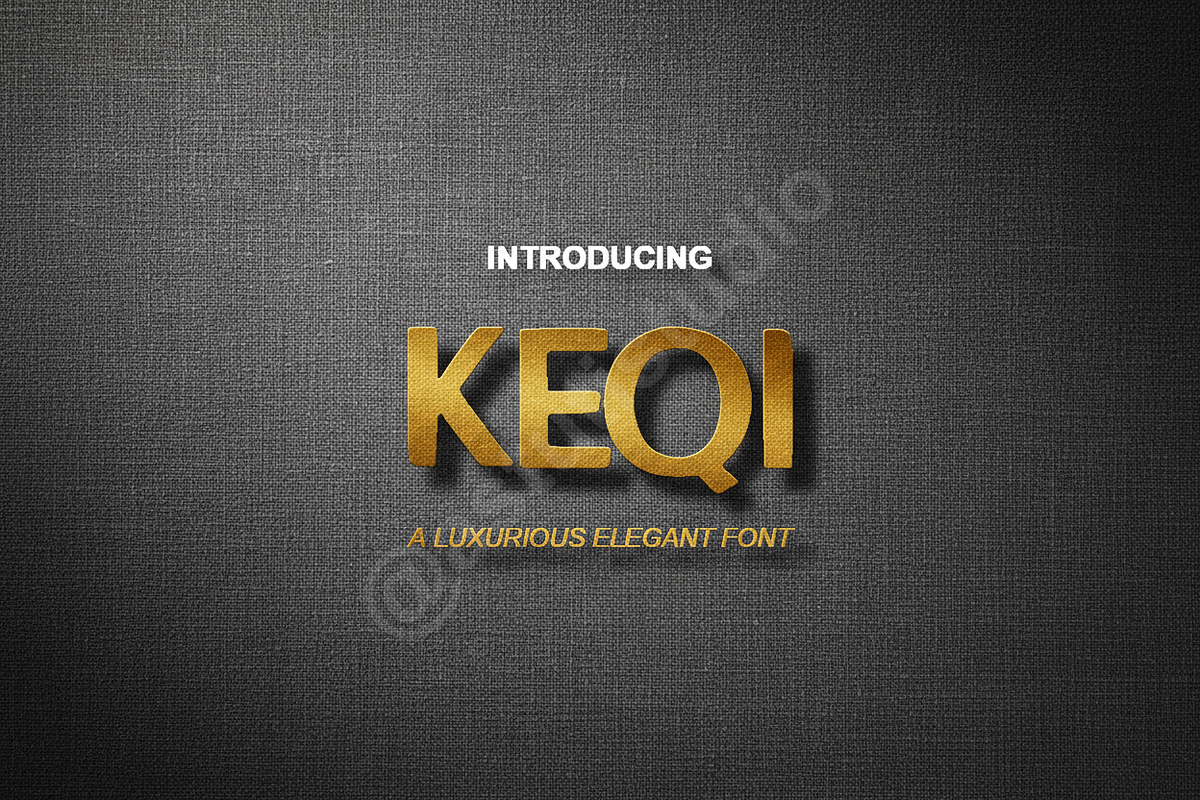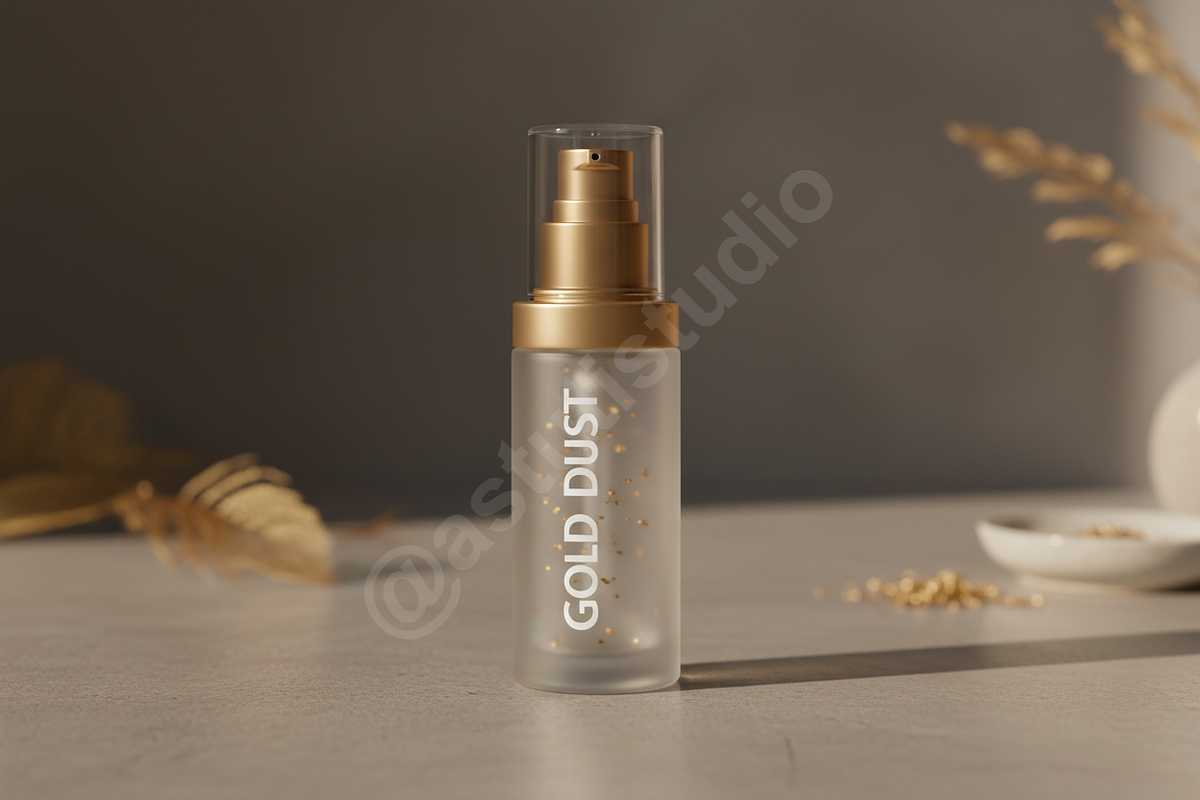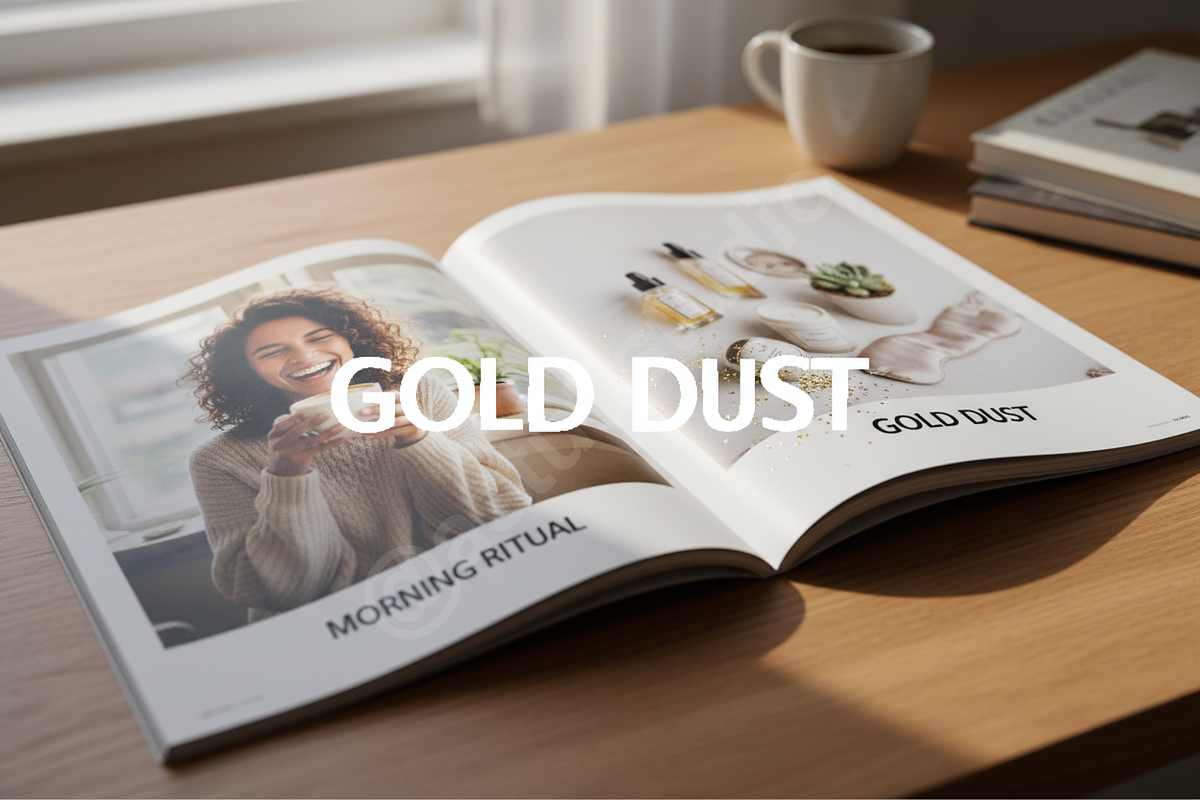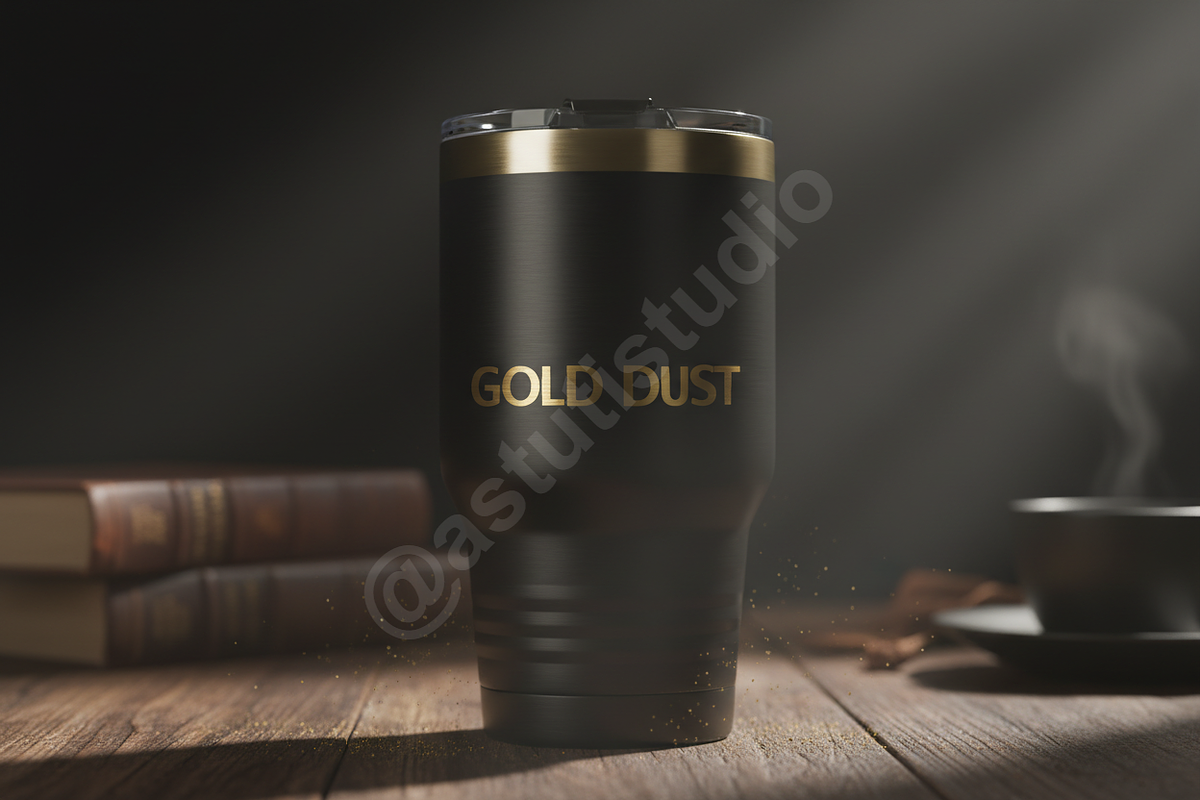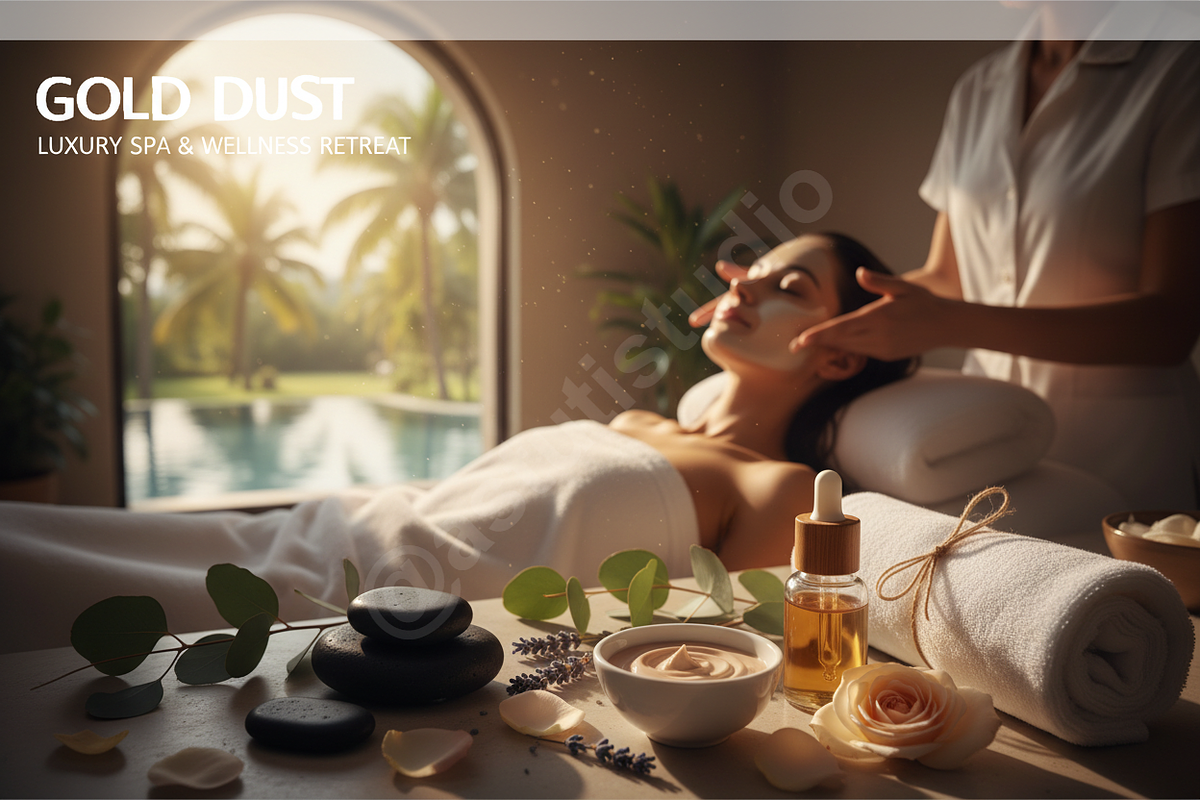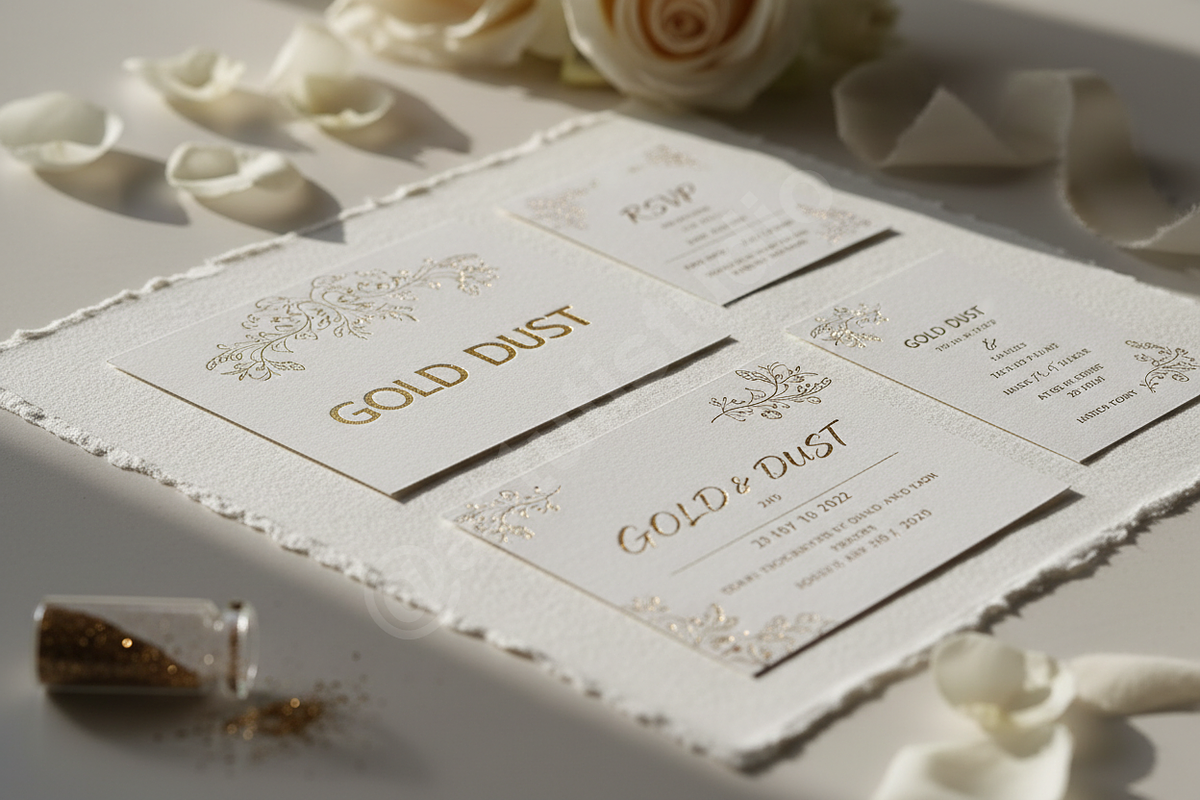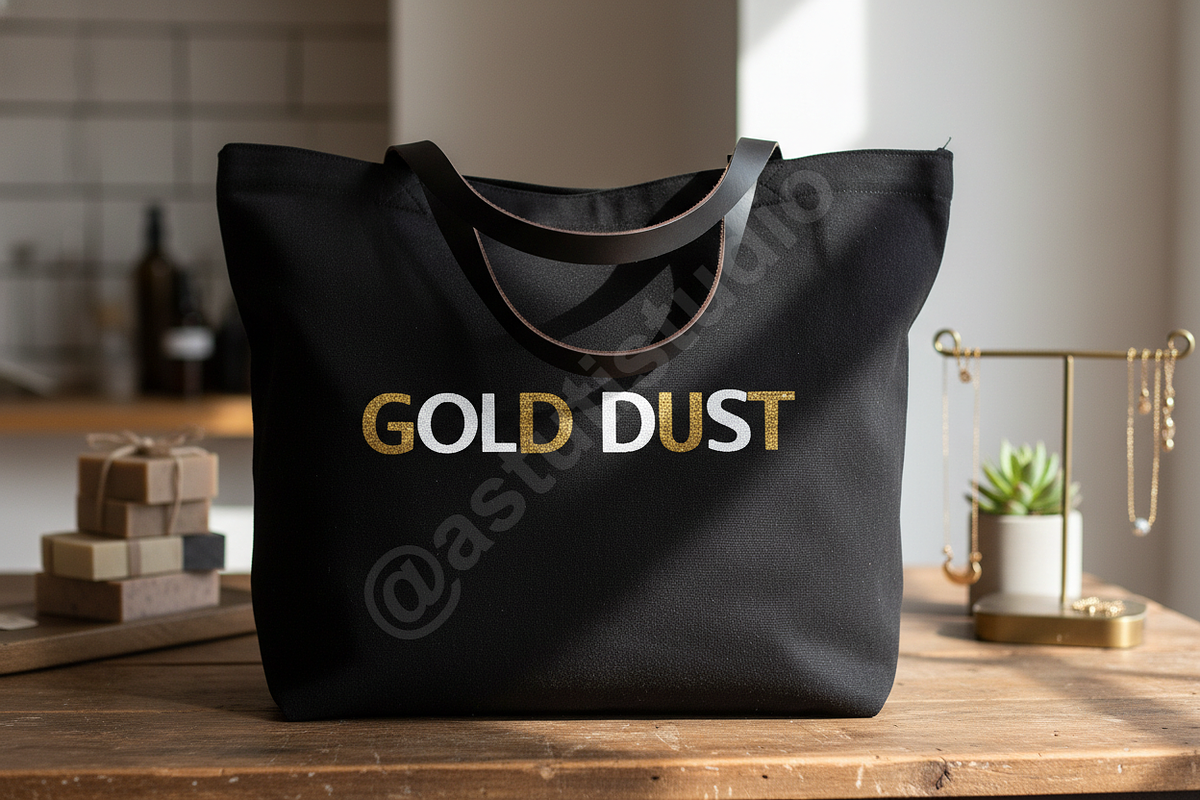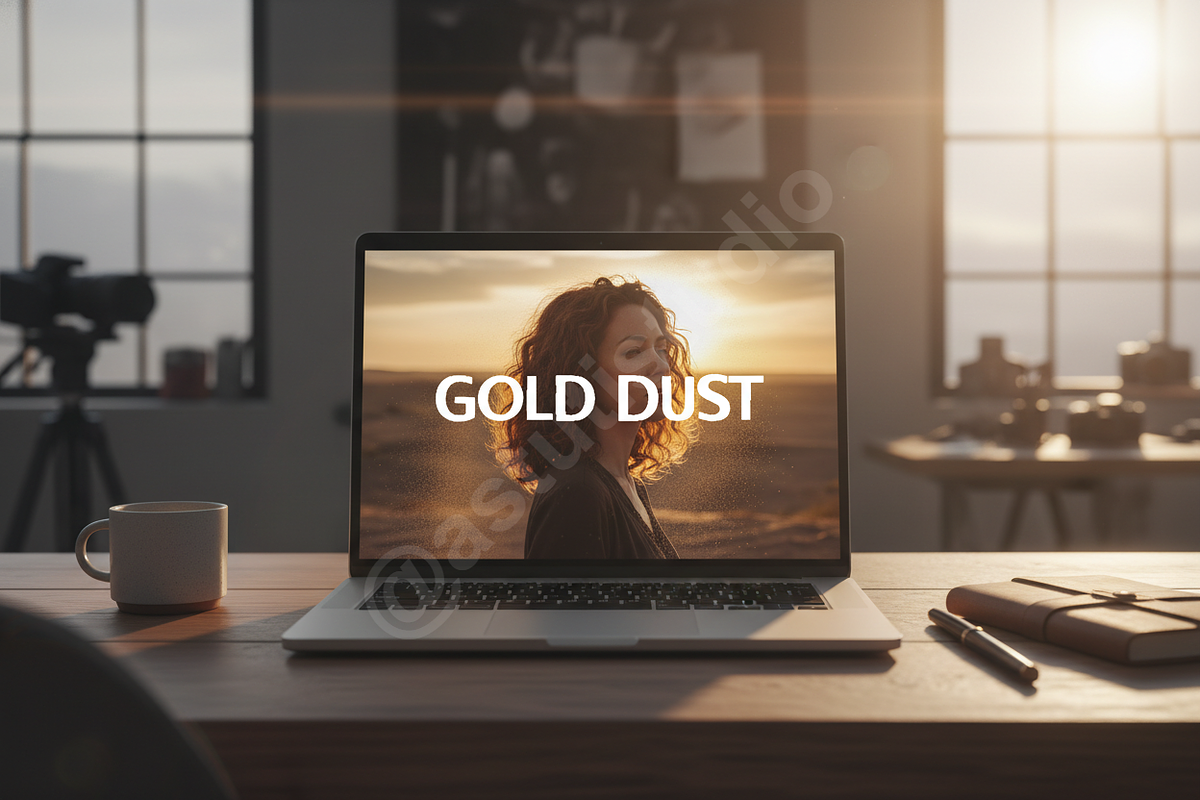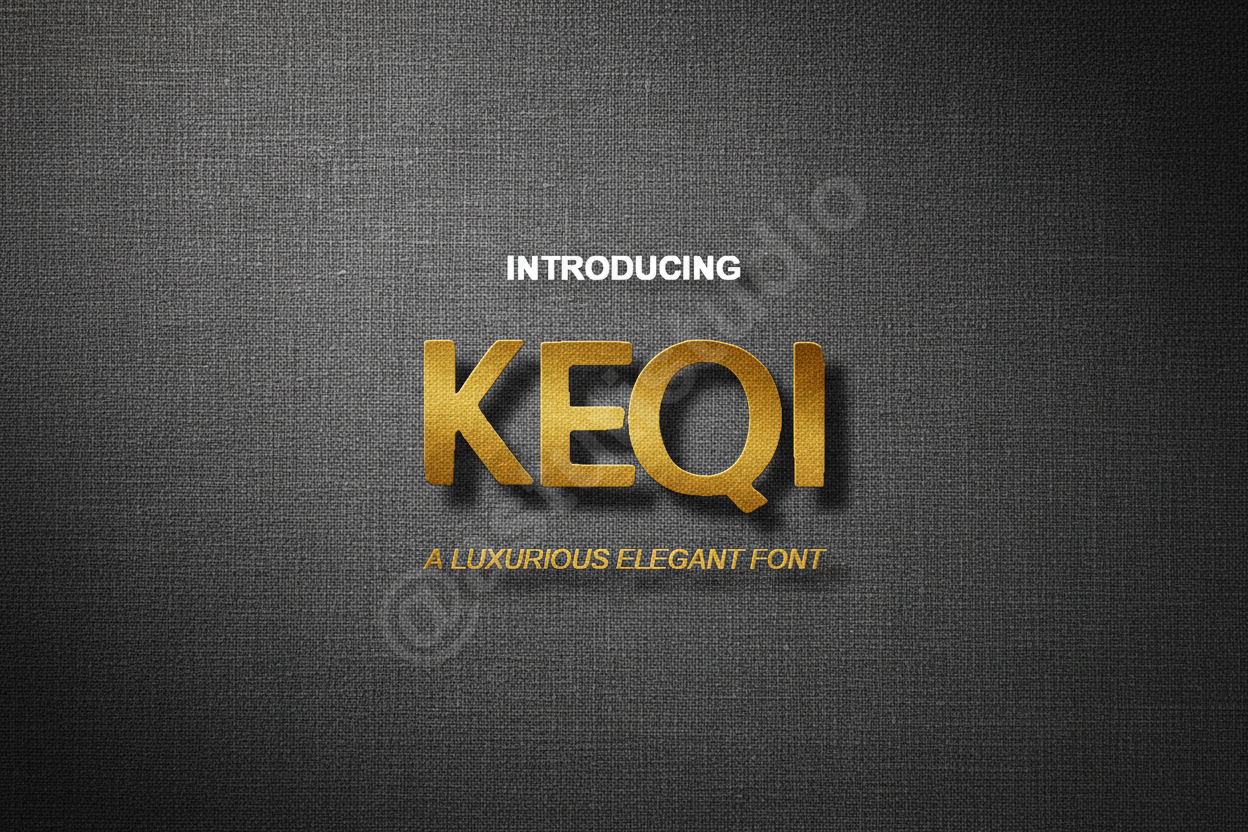
Kegeza - Elegant Modern Serif Font
Elevate your design projects with Kegeza, a premium serif typeface crafted for those who demand sophistication and clarity. Inspired by high-fashion editorials and luxury branding, Kegeza strikes a perfect balance between classic heritage and contemporary minimalism. Whether you are designing a sleek logo, a high-end magazine layout, or engaging social media content, Kegeza provides the professional edge your brand deserves.
Product Features:
- High-contrast letterforms for a luxurious feel
- Unique discretionary ligatures and stylistic alternates
- Full multilingual character support
- Precise kerning and clean geometric outlines
- Optimized for both high-resolution print and digital displays